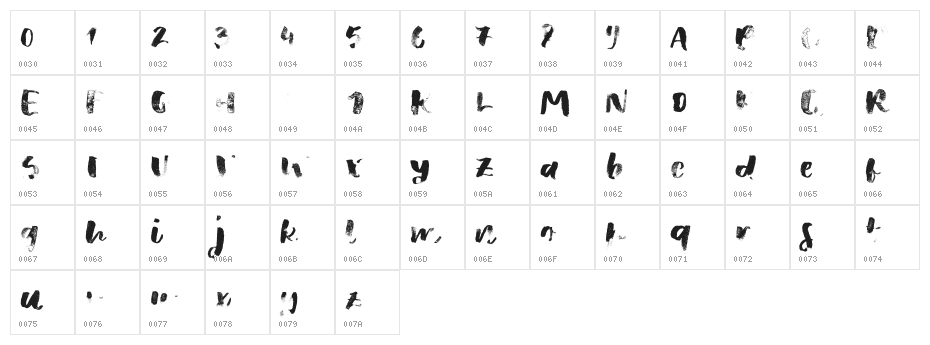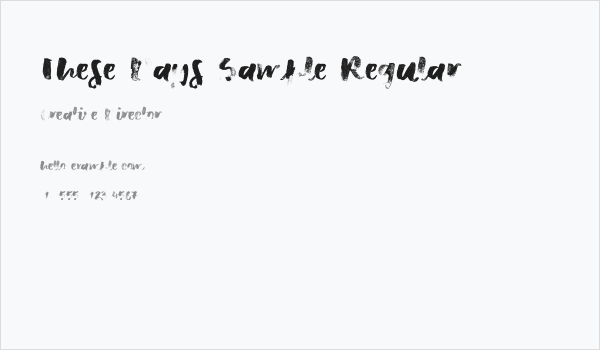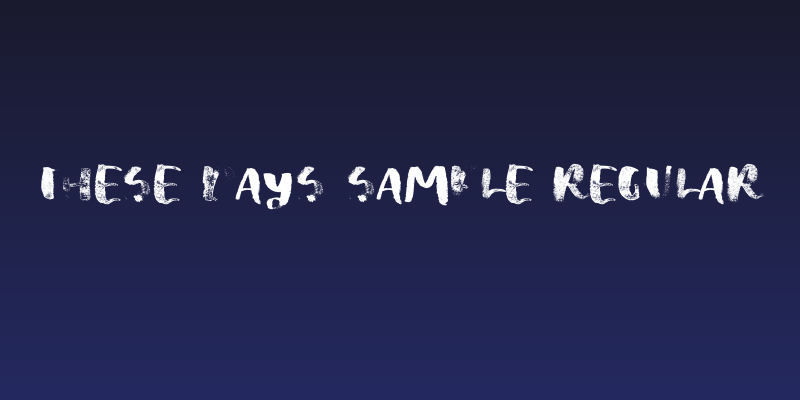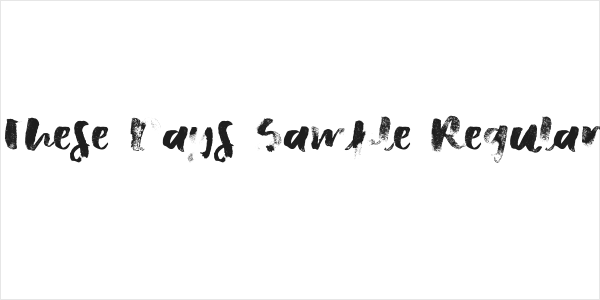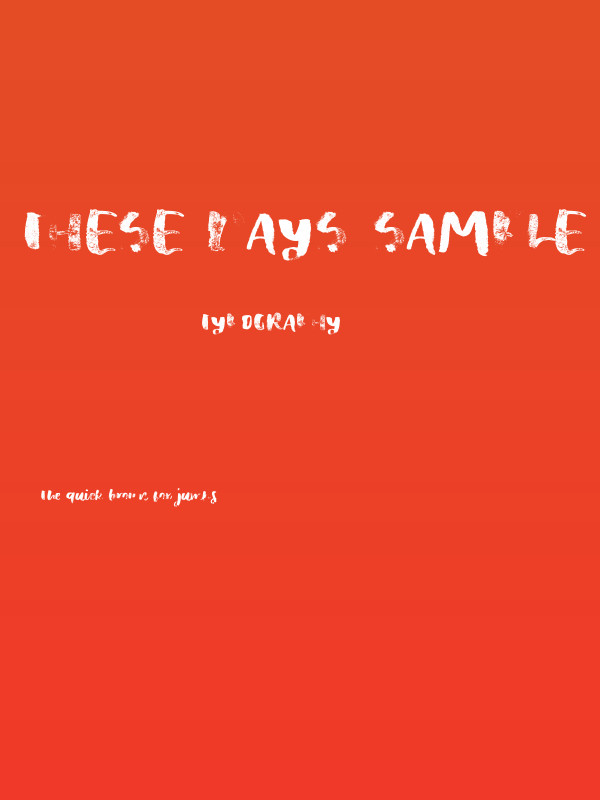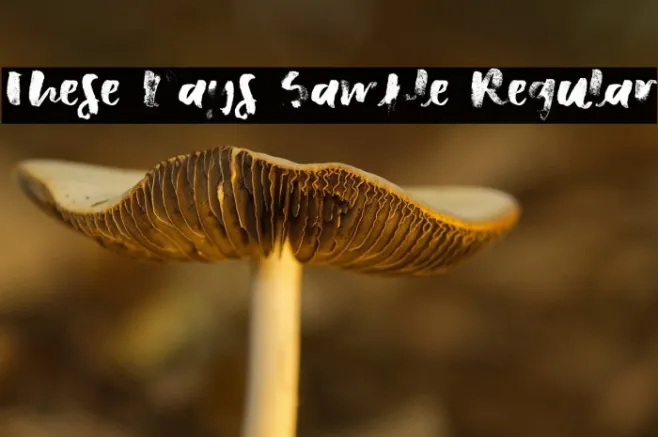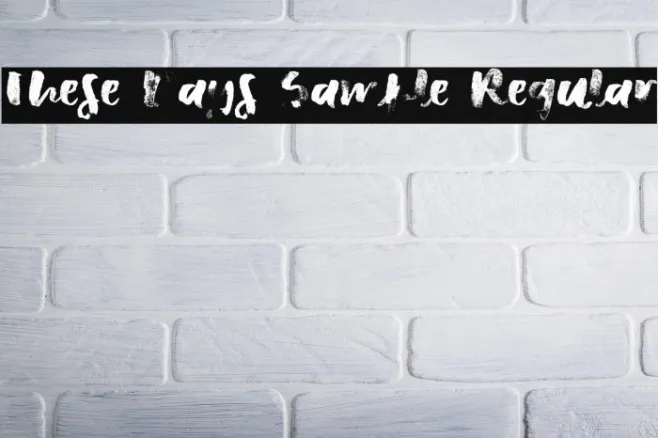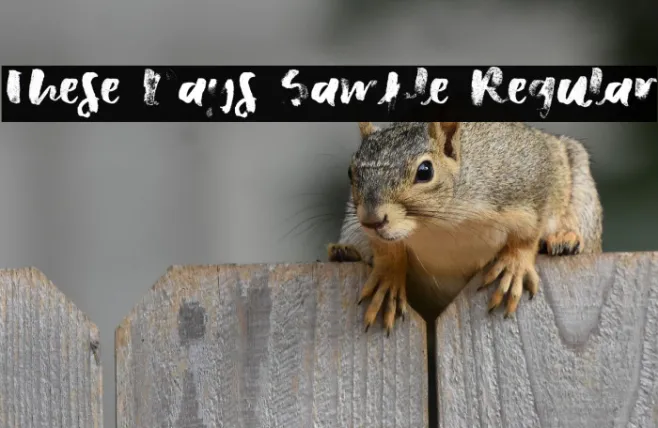
These Days Sample Regular Font
These Days Sample Regular Description
This font features a bold, expressive brush style that exudes a sense of artistic flair and creativity. The strokes are uneven and textured, giving it a hand-painted appearance that adds a personal touch to any design. The characters are dynamic and fluid, with varying thicknesses that create a sense of movement and energy. This font is ideal for projects that require a bold statement or a creative edge, such as posters, album covers, or branding materials. Its unique style makes it stand out, capturing attention with its artistic and slightly chaotic charm.
| Proposed Projects | Posters, album covers, branding materials, artistic designs. |